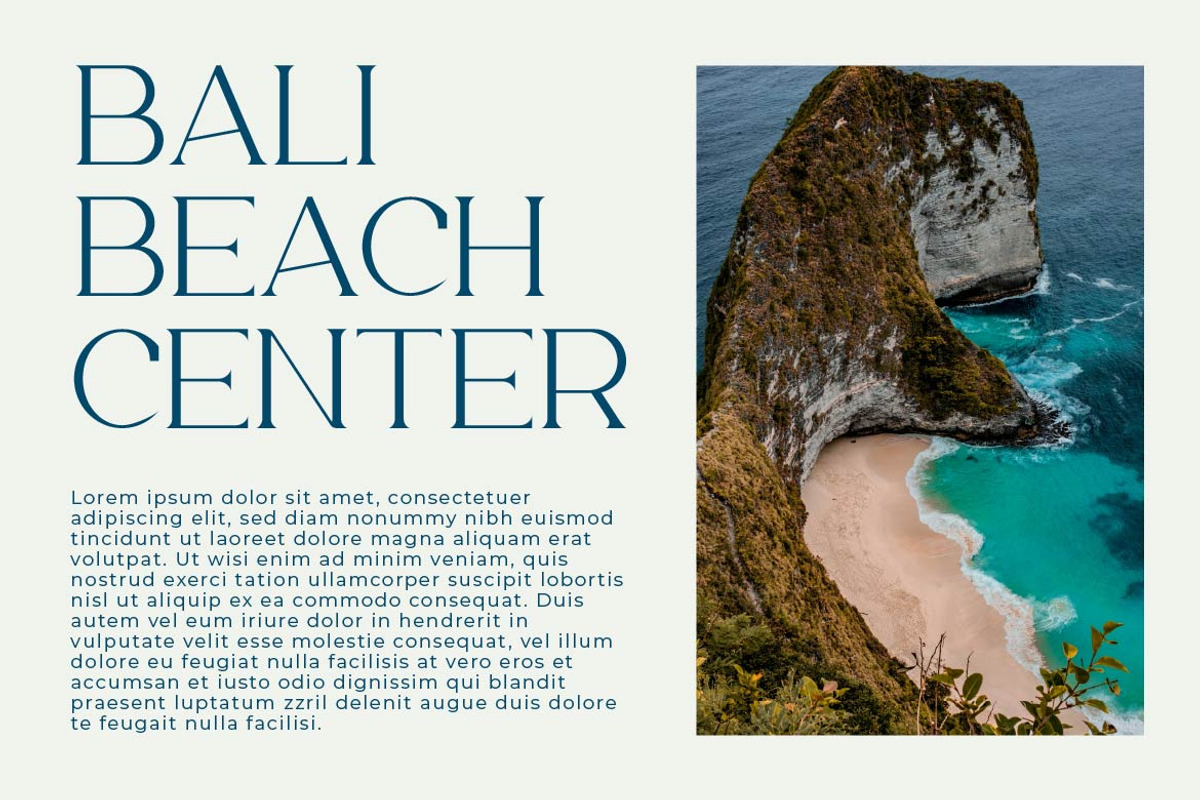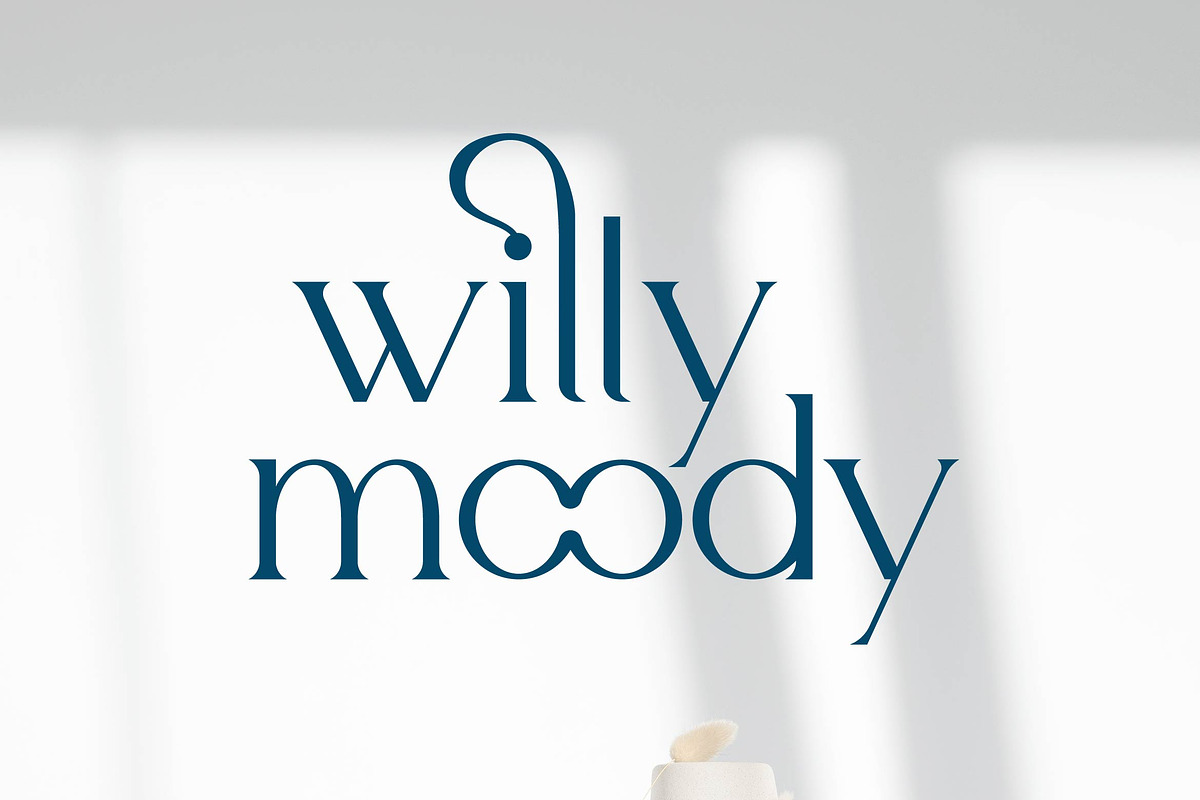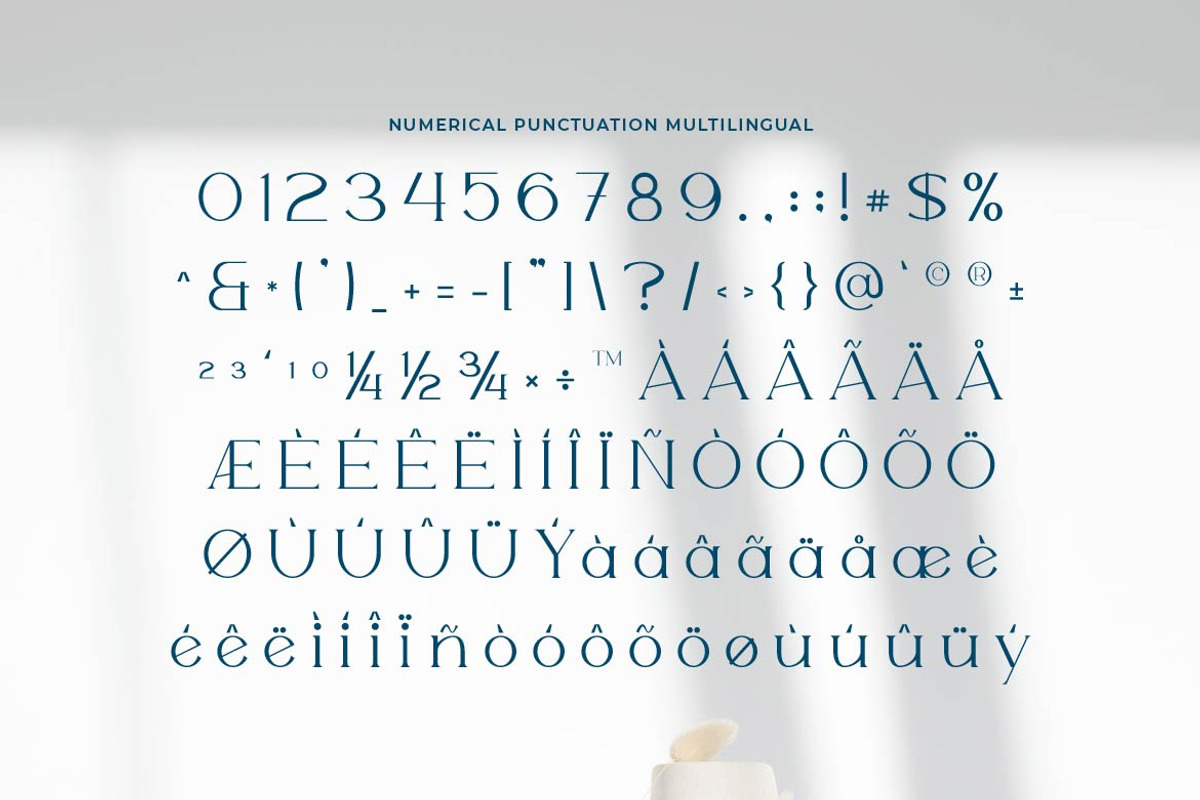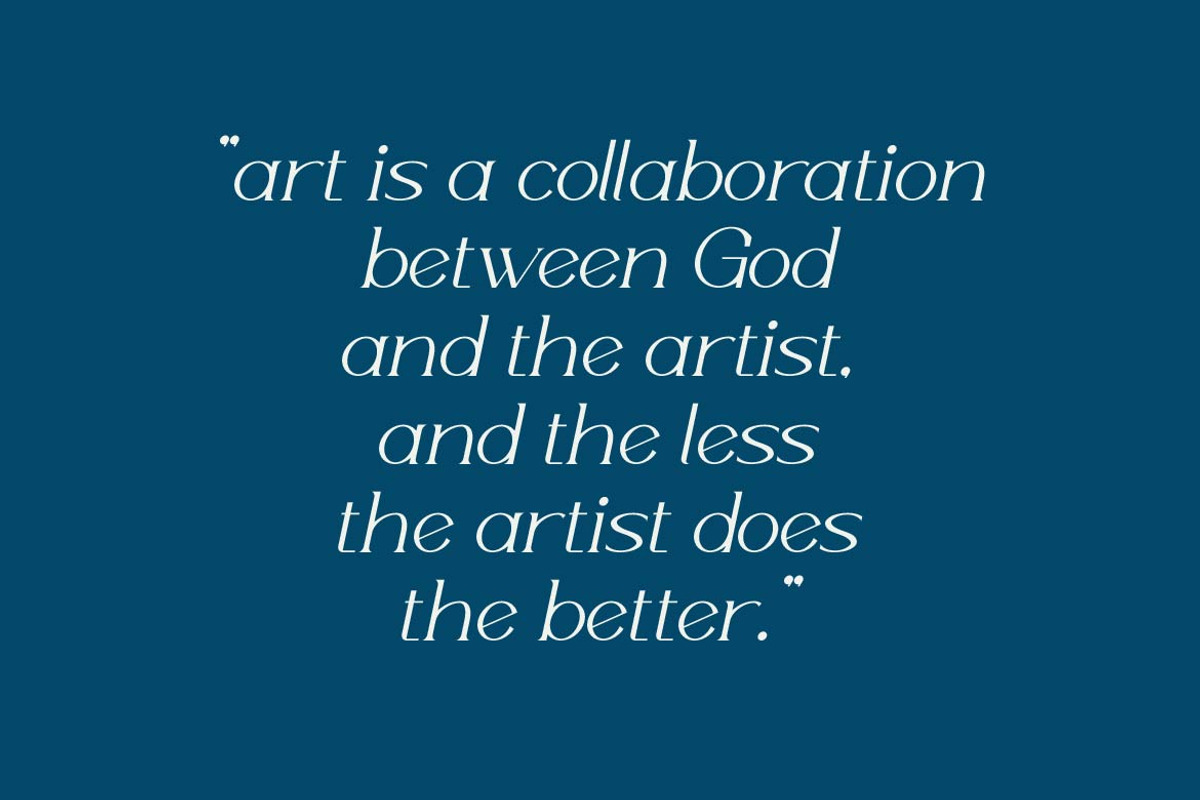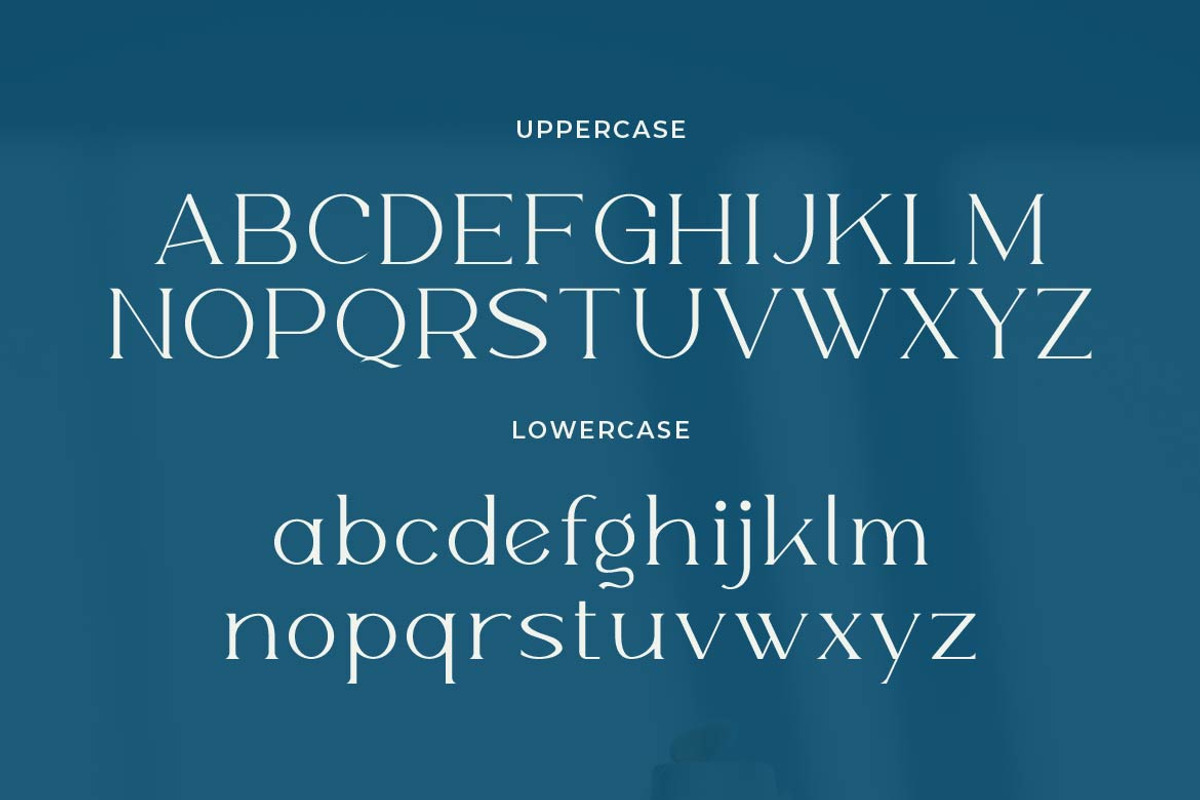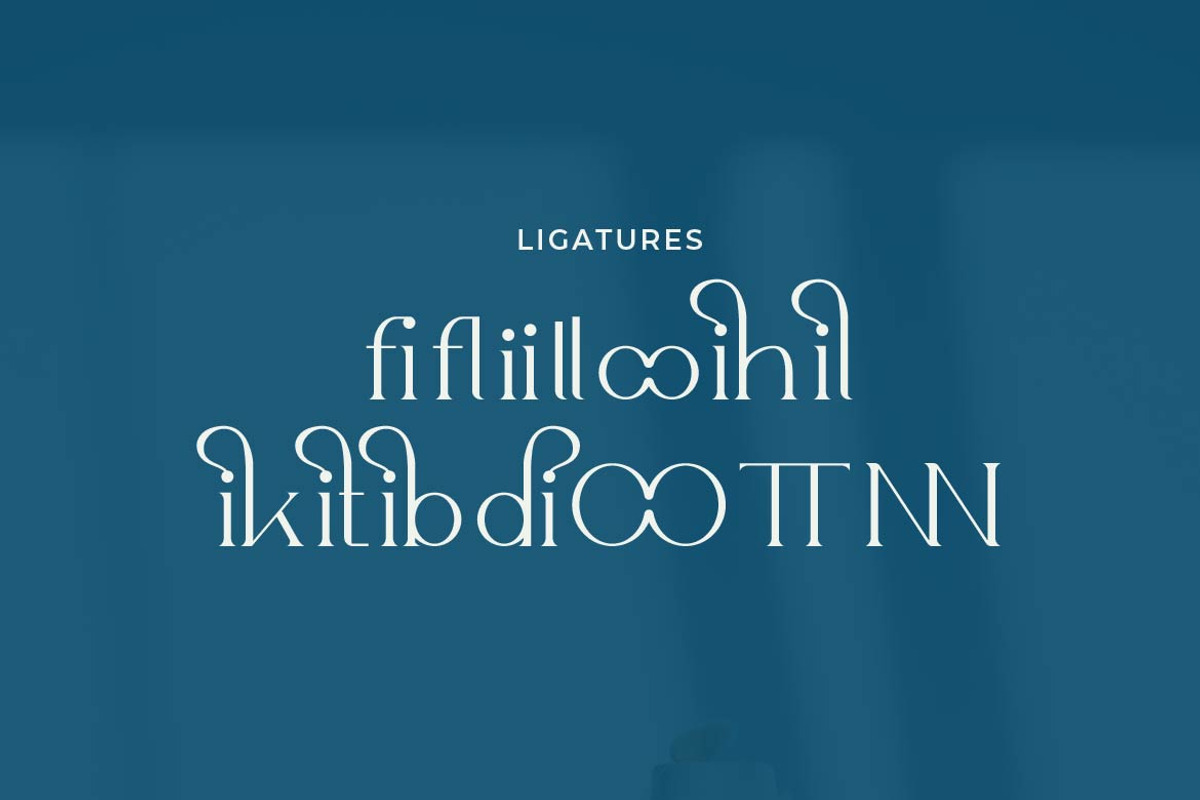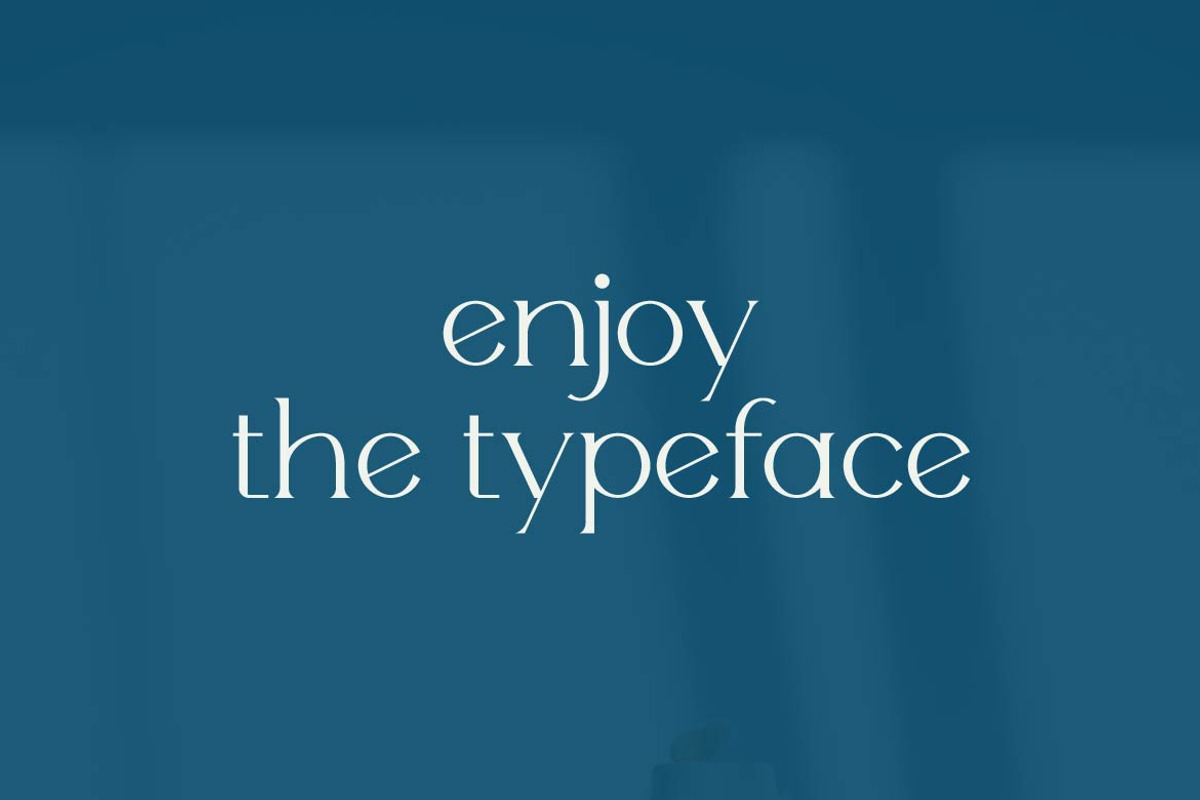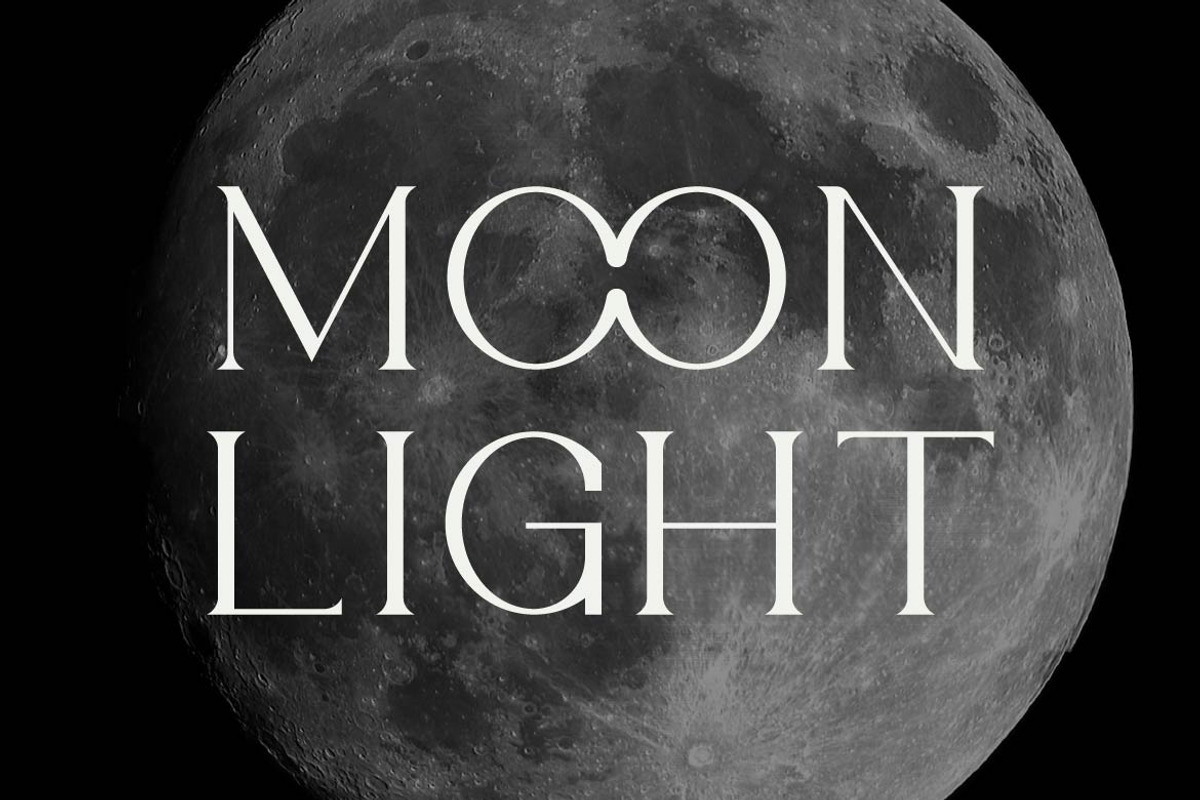
Willy Moody Elegant Serif
Willy Moody is a delicate minimalist serif font designed to express elegance through simplicity. With soft curves, slender strokes, and thoughtful spacing, this typeface captures a calm, graceful tone — perfect for feminine branding, beauty packaging, wedding invitations, fashion editorials, and modern lifestyle content.